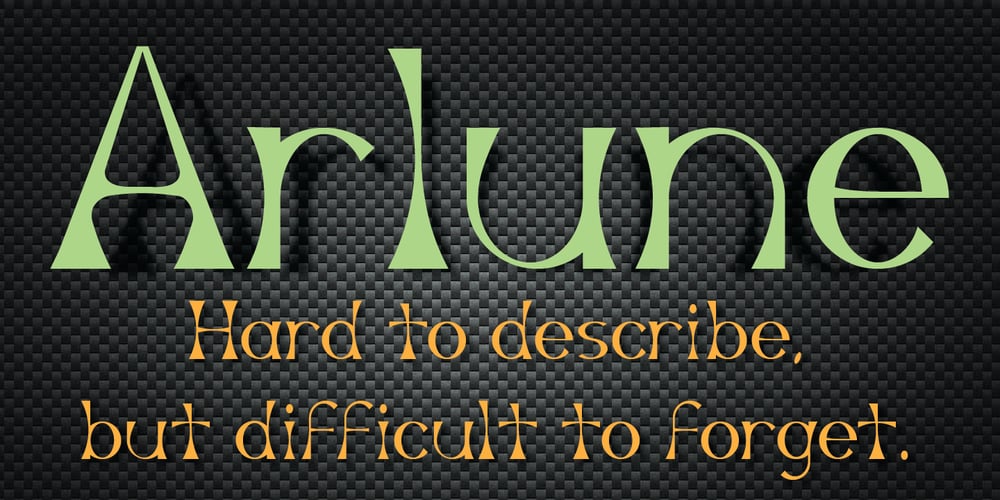
Arlune Font Family was designed by Justin Daniels and published by Creative Juncture. Arlune contains 1 styles and family package options. How does one describe Arlune. It started as a typeface with curves based on the arc of a crescent moon (Arc + Lunar = Arlune), then evolved into what it is. A very unique graphic typeface with a dynamic character that works well for titles, headings, and other lines of text that need to grab your attention. This is a typeface that is sure to leave an impression. One that will make people stop, take pause, and maybe even ponder the meaning of life as they study its intricacies. It has a significant number of characters and symbols to meet the needs of many languages.